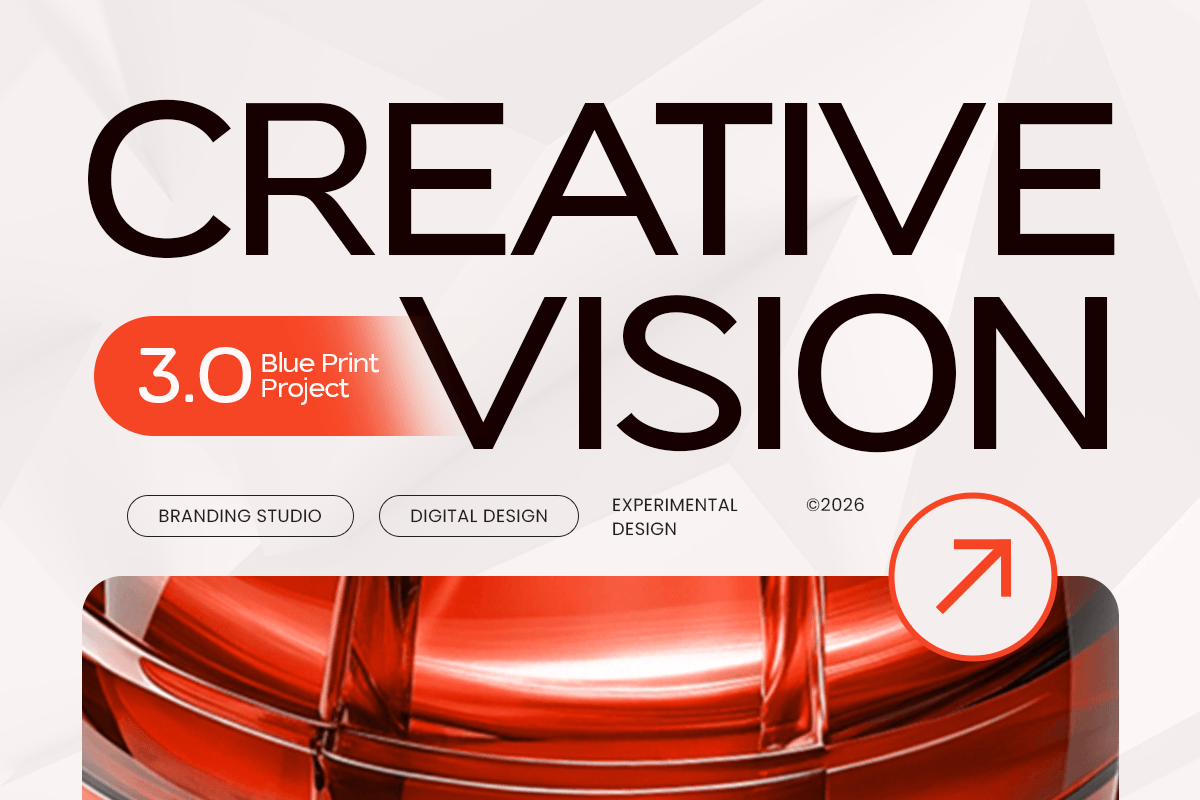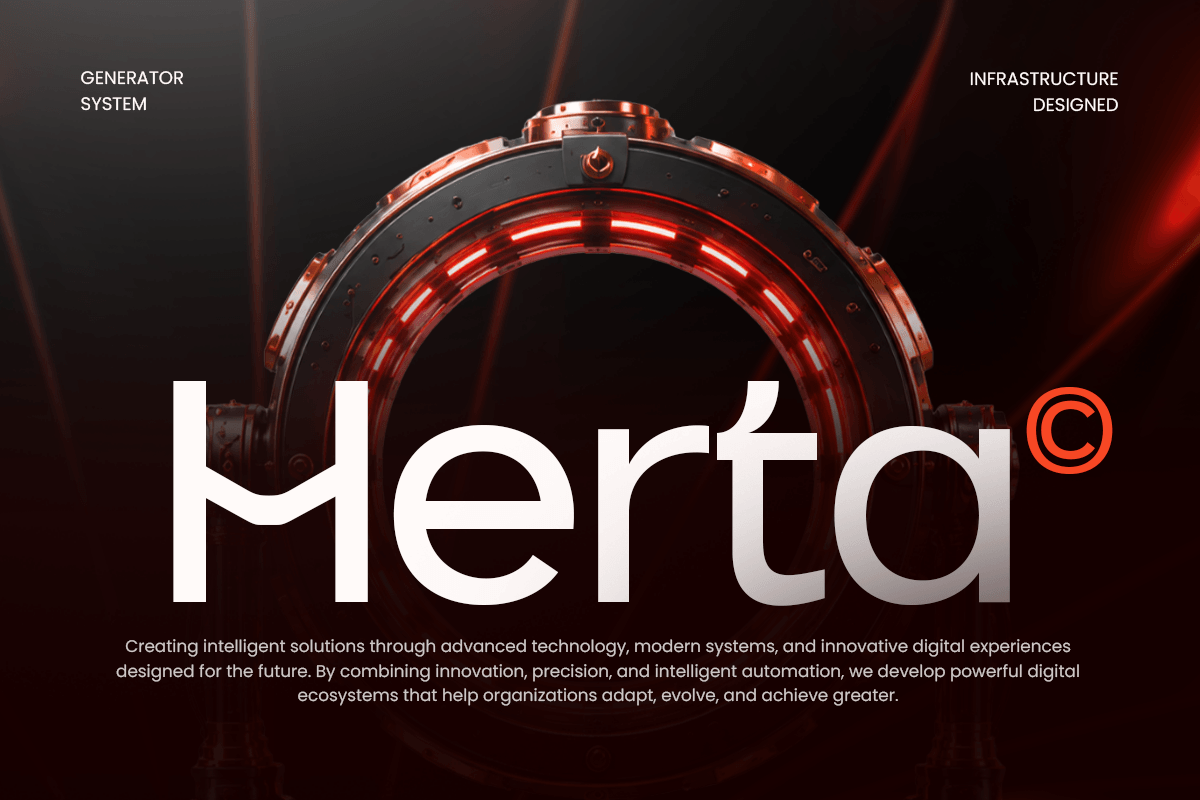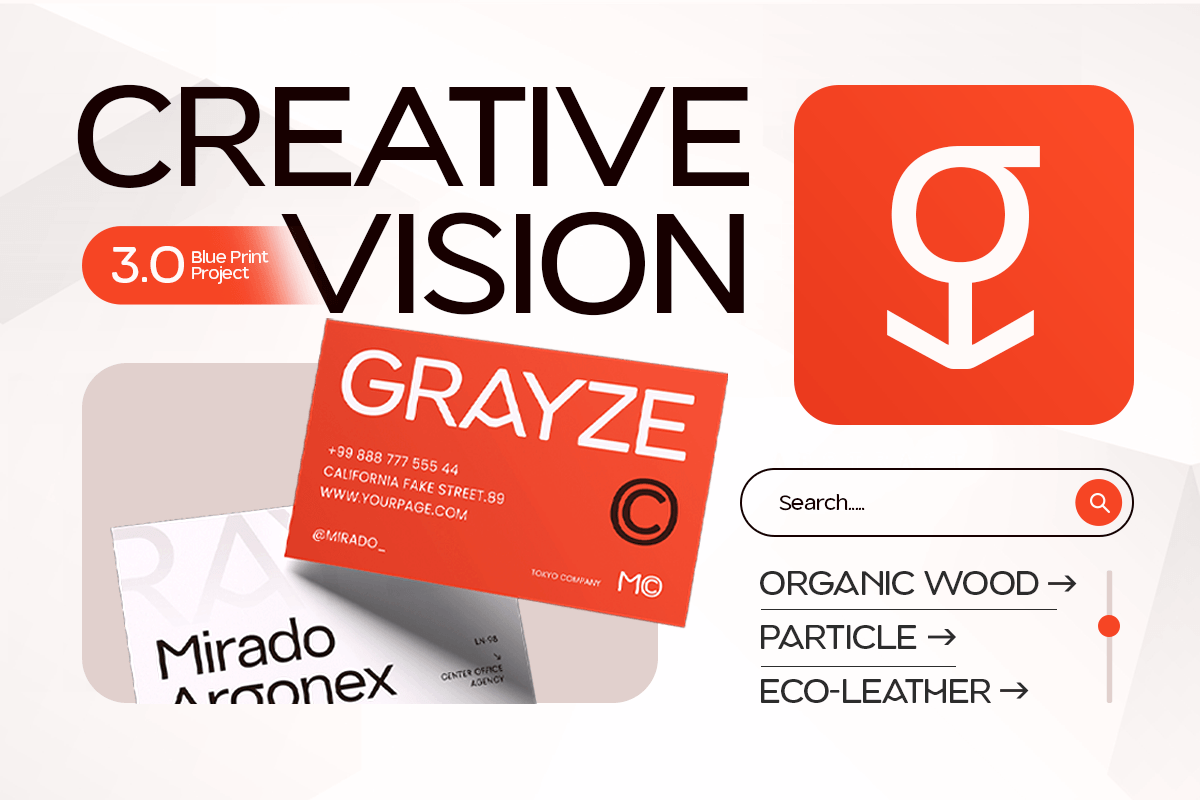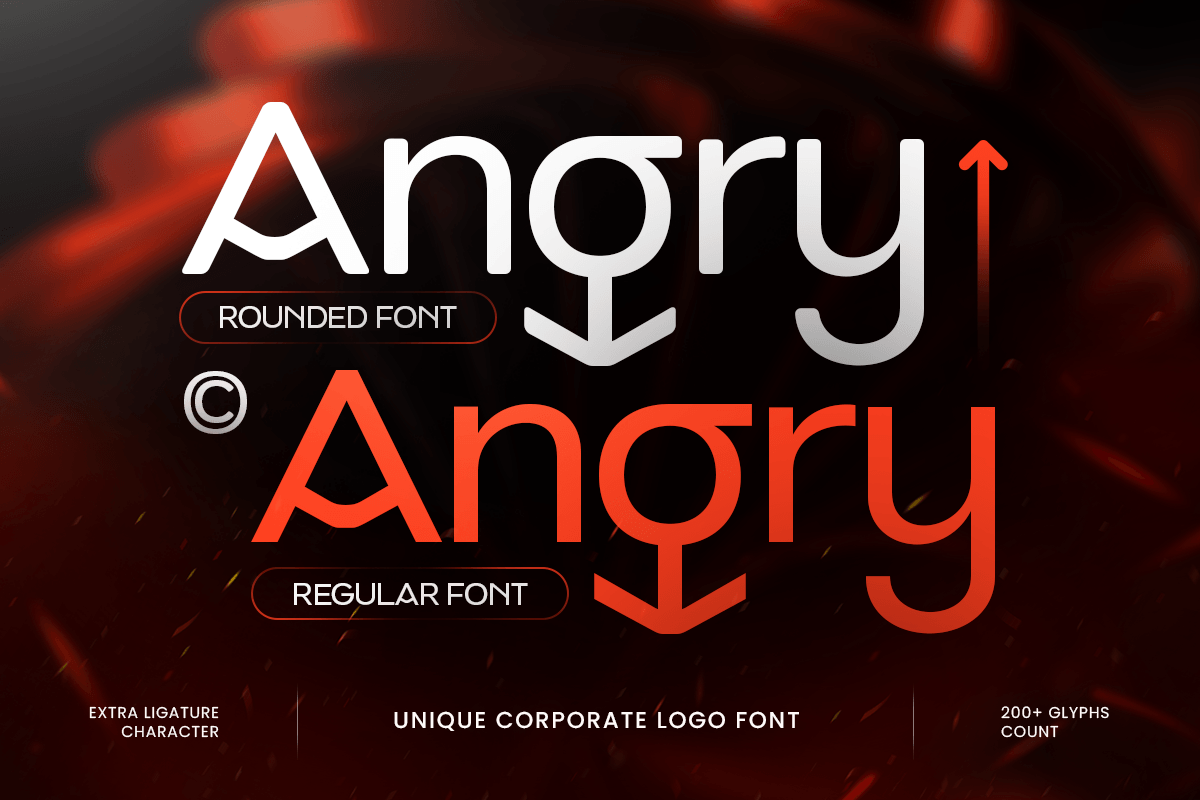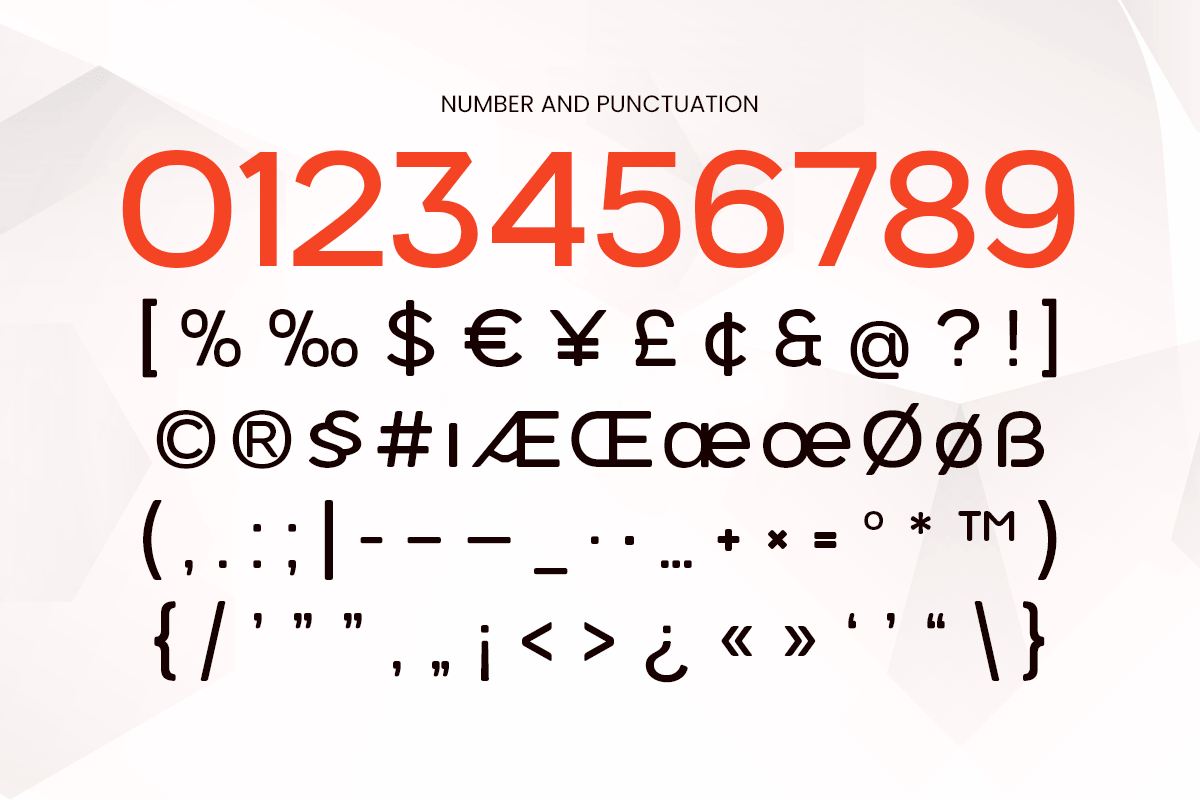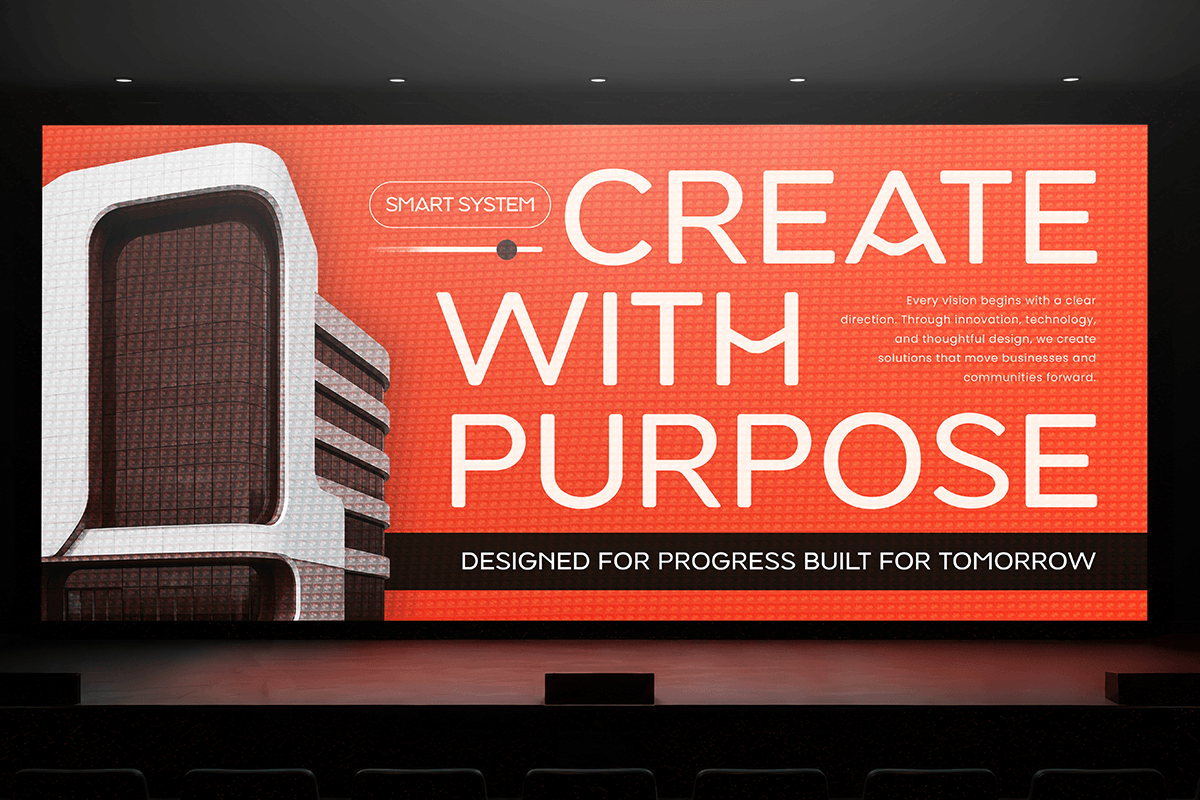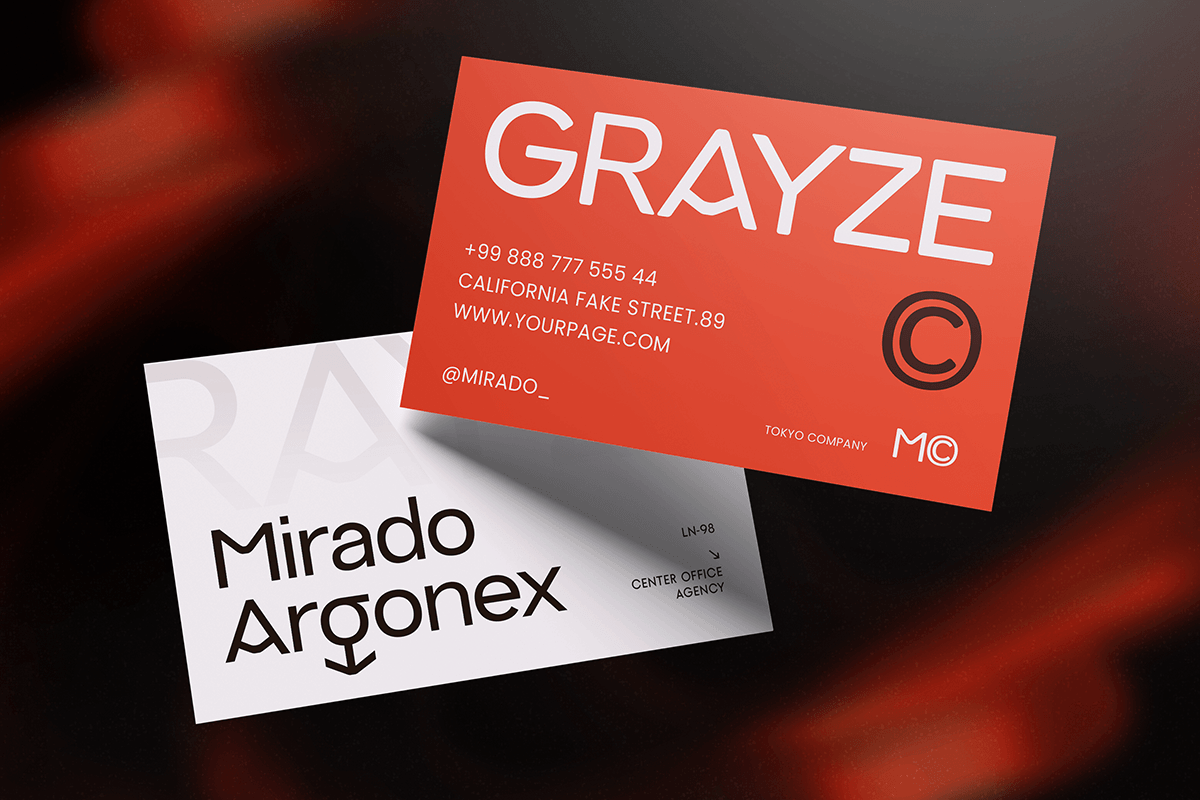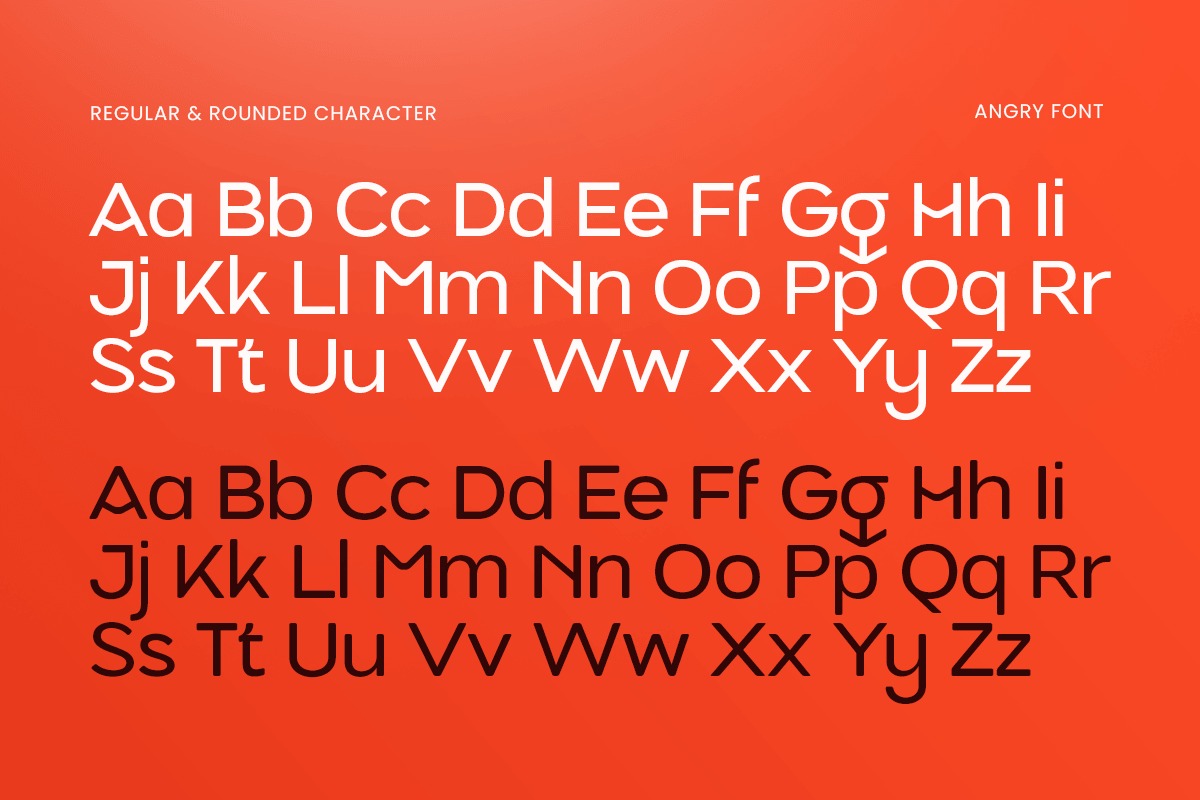
Angry - Unique Corporate Logo Font
Angry – Unique Corporate Logo Font
Make your brand stand out with Angry, a bold and distinctive display font designed to bring a strong, modern personality to your visual identity.
With its unique letterforms and confident character, Angry is especially suitable for logo design, branding, corporate identity, headlines, packaging, posters, badges, and promotional materials.
Whether you're creating a powerful company logo, a modern brand identity, or eye-catching marketing graphics, Angry adds a memorable and professional touch to your designs.
Logo & branding
Corporate identity
Business cards
Headlines & titles
Posters & advertising
Packaging design
Labels & badges
Editorial & display designs
Angry is made for designers who want a unique, bold, and recognizable typographic style that helps their brand make a strong impression.